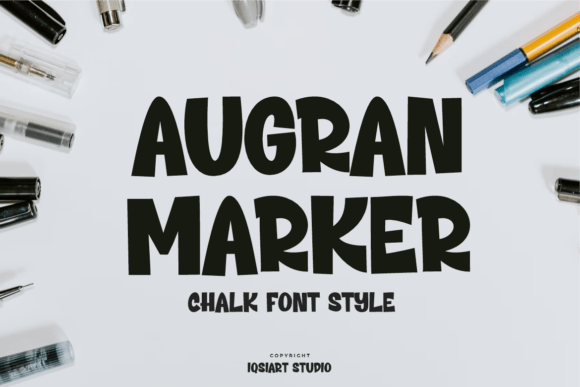
Introducing Augran Marker Font: The Ultimate Chalk-Style Font for Creative Projects
Are you looking for a font that can add a touch of playfulness and creativity to your designs? Look no further than Augran Marker Font. This bold and playful chalk-style font is perfect for school themes, kid-friendly designs, posters, signage, and any project that needs a burst of energy. In this article, we’ll explore the unique features of Augran Marker Font and how it can elevate your designs.
The Charm of Hand-Drawn Marker Lettering
Augran Marker Font is inspired by the casual charm of hand-drawn marker lettering. Its chunky strokes and fun, uneven edges bring a lively, expressive feel to your projects. The font’s design is reminiscent of traditional chalkboard writing, but with a modern twist that makes it perfect for a wide range of applications.
One of the key features of Augran Marker Font is its bold and playful appearance. The font’s chunky strokes and irregular edges give it a hand-drawn feel that’s perfect for creating eye-catching headlines and titles. Whether you’re designing a poster, flyer, or social media graphic, Augran Marker Font is sure to grab attention.
Perfect for School Themes and Kid-Friendly Designs
Augran Marker Font is a great choice for school themes and kid-friendly designs. The font’s playful and energetic feel makes it perfect for creating materials for children’s events, educational resources, and school projects. The font’s bold and chunky strokes also make it easy to read, even from a distance.
Whether you’re creating a poster for a school event, a worksheet for kids, or a social media graphic for a children’s brand, Augran Marker Font is a great choice. The font’s fun and playful feel will help you connect with your audience and create a lasting impression.
Ideal for Posters, Signage, and Headlines
Augran Marker Font is also perfect for posters, signage, and headlines. The font’s bold and chunky strokes make it easy to read, even from a distance. The font’s playful and energetic feel also makes it perfect for creating eye-catching headlines and titles.
Whether you’re creating a poster for a concert, a sign for a store, or a headline for a website, Augran Marker Font is a great choice. The font’s bold and playful appearance will help you grab attention and create a lasting impression.
Benefits of Using Augran Marker Font
There are many benefits to using Augran Marker Font in your designs. Here are a few:
- Unique and eye-catching appearance: Augran Marker Font has a bold and playful appearance that’s sure to grab attention.
- Perfect for school themes and kid-friendly designs: The font’s playful and energetic feel makes it perfect for creating materials for children’s events and educational resources.
- Easy to read: The font’s bold and chunky strokes make it easy to read, even from a distance.
- Versatile: Augran Marker Font can be used in a wide range of design projects, from posters and signage to social media graphics and websites.
Augran Marker Font is a bold and playful chalk-style font that’s perfect for adding a touch of creativity and playfulness to your designs. With its chunky strokes and fun, uneven edges, this font is sure to grab attention and create a lasting impression. Whether you’re designing a poster, flyer, or social media graphic, Augran Marker Font is a great choice.